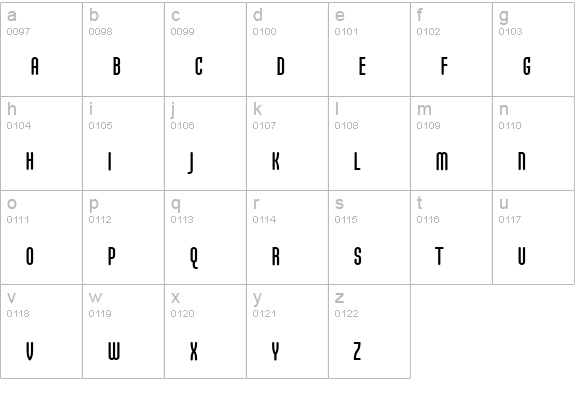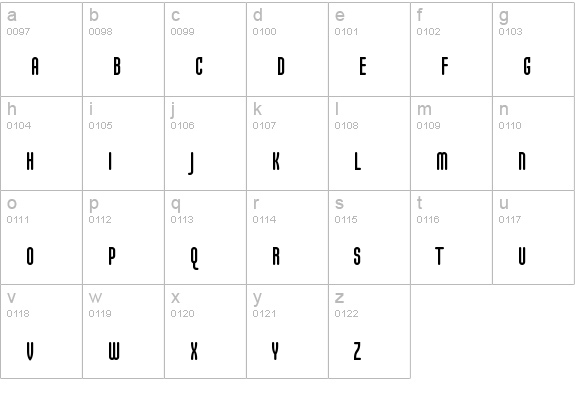
ModulaRoundSansSmallCaps Font Details
ModulaRoundSansSmallCaps font is a versatile and modern typeface that combines sleek, rounded letterforms with a touch of sophistication. Its small caps style adds a unique flair to any design project, making it perfect for both digital and print applications. The clean lines and balanced proportions of ModulaRoundSansSmallCaps make it easy to read and visually appealing. The best part about ModulaRoundSansSmallCaps font is that it is available for free download at FontsMarket.com. This means you can easily access this stylish font and use it in your projects without any cost. Whether you're designing a website, creating a logo, or working on a print publication, ModulaRoundSansSmallCaps font is a great choice that will elevate your work to the next level. Download it today and add a touch of elegance to your designs!